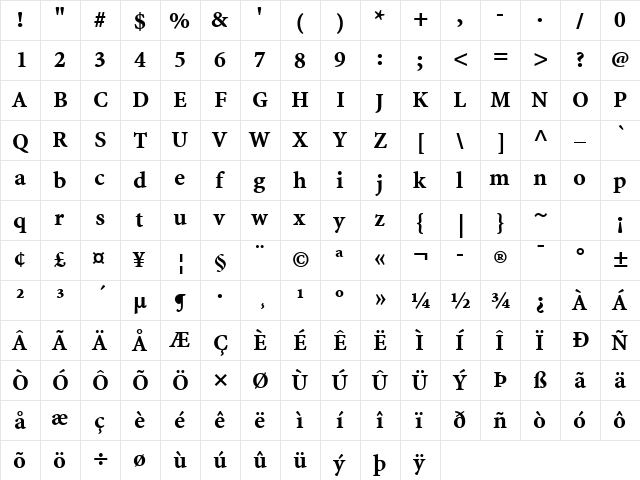
Minion Web Pro Bold
| Designer | Robert Slimbach |
Design Context for Minion Web Pro Typeface
Minion Web Pro takes a measured approach to typography — its balanced proportions and neutral character make it a reliable workhorse for both digital and print work. The heavy weight commands attention and anchors typographic hierarchies.